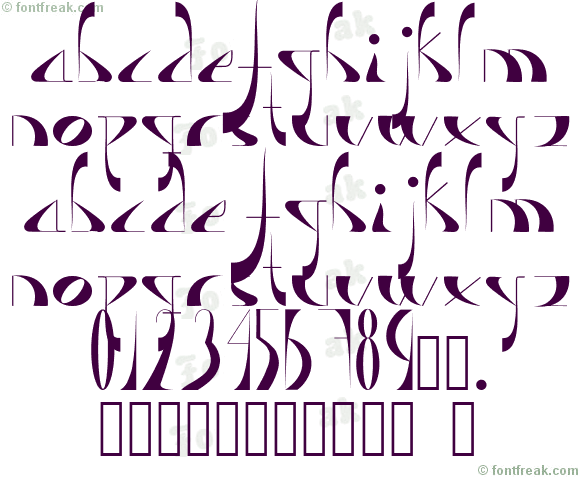
Lavande
Lavande is a captivating display font crafted by Manuel Ramos, designed with the versatile FontForge software. This font is classified as a decorative typeface, making it perfect for a range of creative projects. Its unique visual characteristics include a moderate stroke weight and a balanced contrast that creates an eye-catching appearance. The letters feature playful curves and distinctive flourishes, which add a touch of elegance while maintaining legibility. The spacing is well-considered, allowing for easy readability in various applications.
The Lavande font is particularly suited for wedding invitations, where its charming design can enhance the romantic ambiance. It also shines in movie posters, providing an artistic flair that draws attention. Restaurant menus can benefit from Lavande's stylish appearance, making the dining experience feel more upscale. Additionally, this font works well for branding materials, helping small business owners convey a unique identity. Content creators looking to add a distinctive touch to their projects will also find Lavande to be a fantastic choice.
Targeting graphic designers, small business owners, and content creators, Lavande stands out due to its whimsical yet sophisticated design. The font is available as a freeware, making it accessible for anyone looking to elevate their design projects without any licensing concerns. With its unique character and versatile applications, Lavande font free download is an excellent resource for those seeking to infuse a bit of artistic flair into their work. Its combination of elegance and playfulness makes it a go-to choice for various creative endeavors, ensuring your designs will leave a lasting impression.